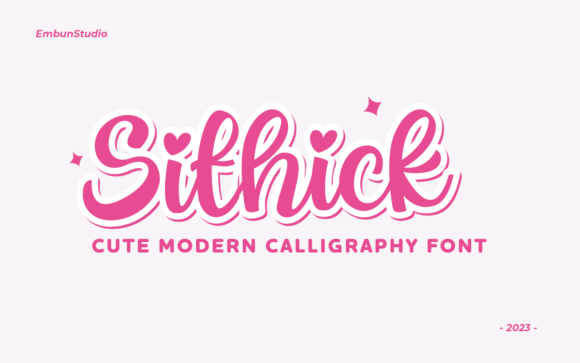
Introducing Sithick Font, the Best Font For Baby! Created by EmbunStudio, Sithick is a cute and modern handwritten script font that is perfect for anyone looking to elevate their creative projects. With its unique design and versatile style, Sithick is the perfect addition to your font collection.
Whether you're a new mom looking to create the perfect baby announcement or a designer looking for the perfect font for your next project, Sithick has got you covered. Its beautiful and delicate script will add a touch of elegance to any design, making it perfect for a wide range of applications.
But that's not all! Sithick is also incredibly easy to use. Its intuitive design and user-friendly interface make it a breeze to work with, even for those who are new to the world of design. And with its wide range of applications, you'll never run out of creative ideas to bring to life.